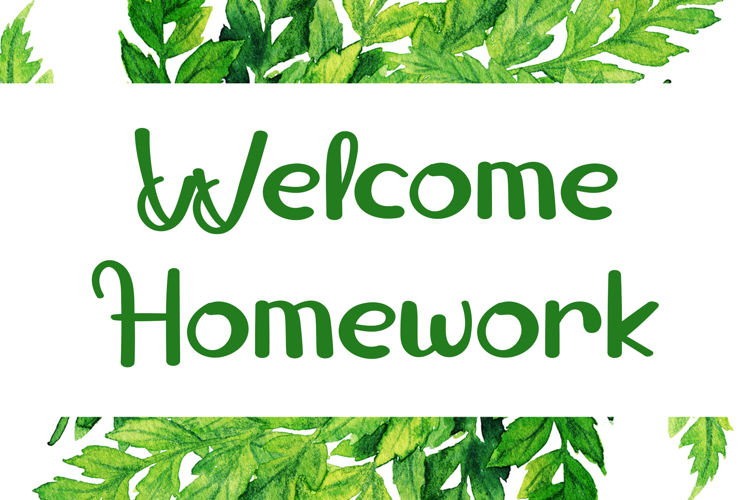
Welcome Homework
Introducing, this is our newest product, we call this product "Welcome Homework",
It looks amazing with sweet touches and beautiful curves in each letter. "Welcome Homework" fonts are perfect for: wedding invitations, fashion magazines, logos, signatures, photography, watermarks, wall displays, social media,